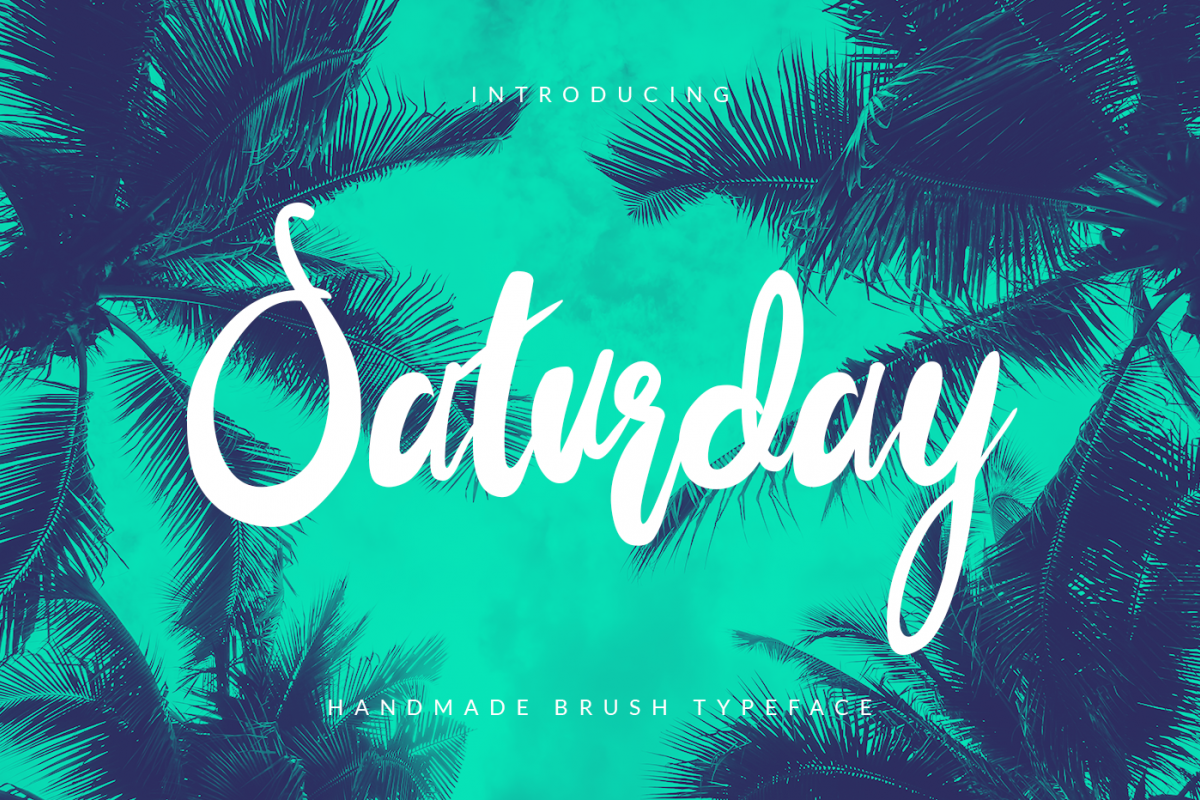
Saturday
Hello,The font Saturday has been fined in detail so that you can use it for any sort of design. It is perfect-match with t-shirt designs due to its unique shape.
Saturday provides you a great chance to create awesome designs... Good work????
GREAT FOR
• Characteristic company logos
• Blog pages
• Logo of brands
• Projects you need to utilize a premium font
• The projects that require a font including lots of alternates.